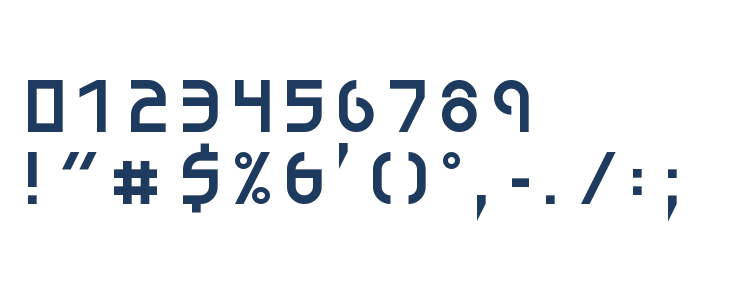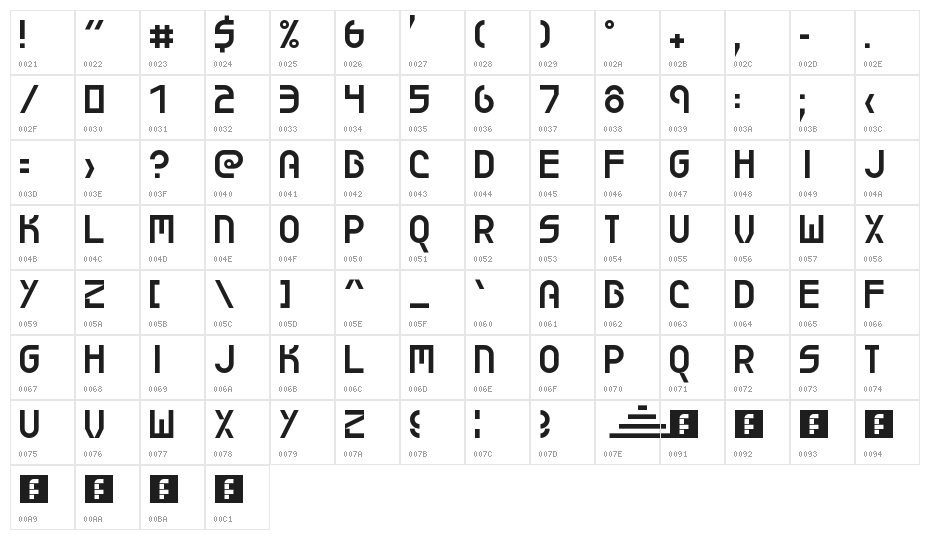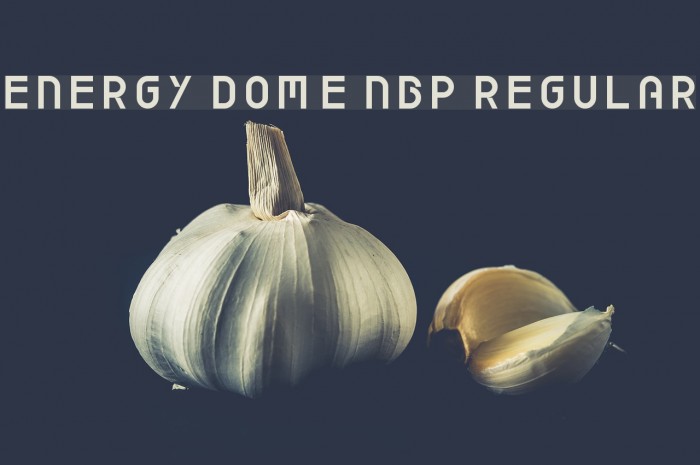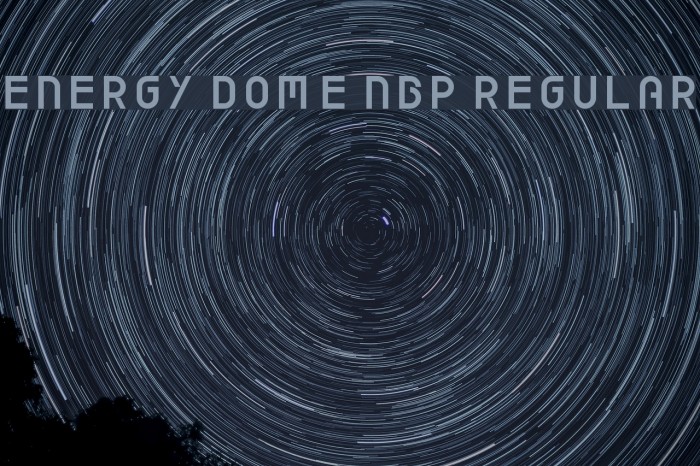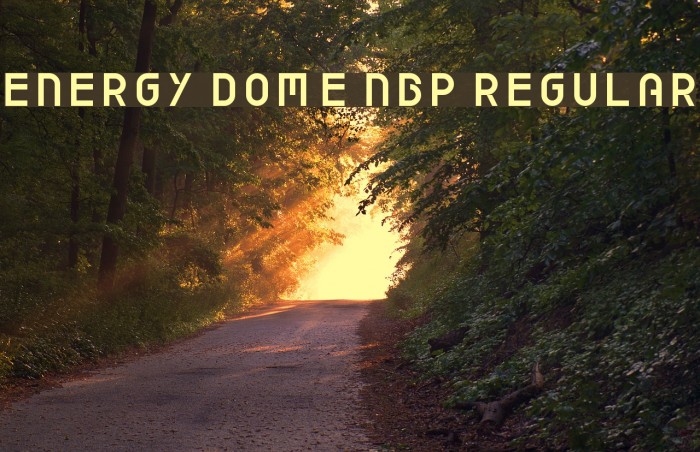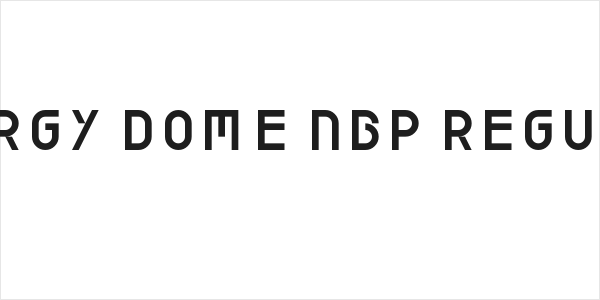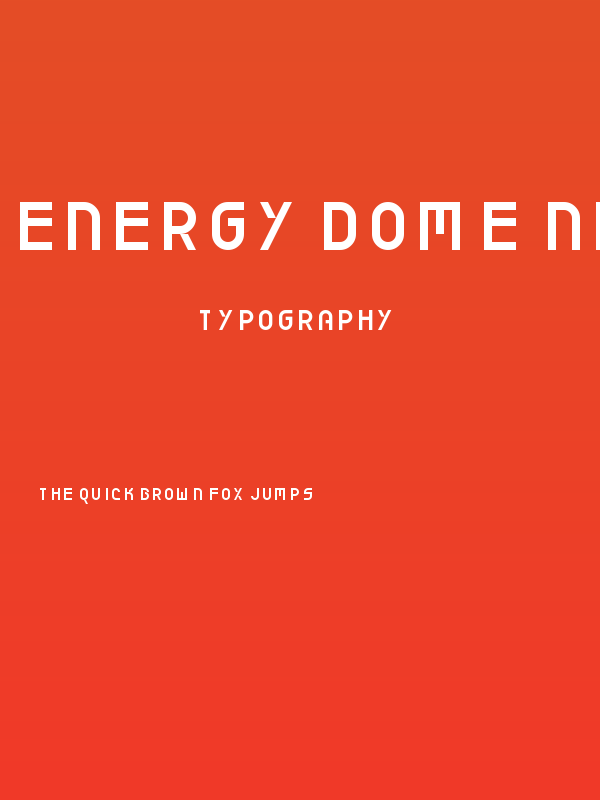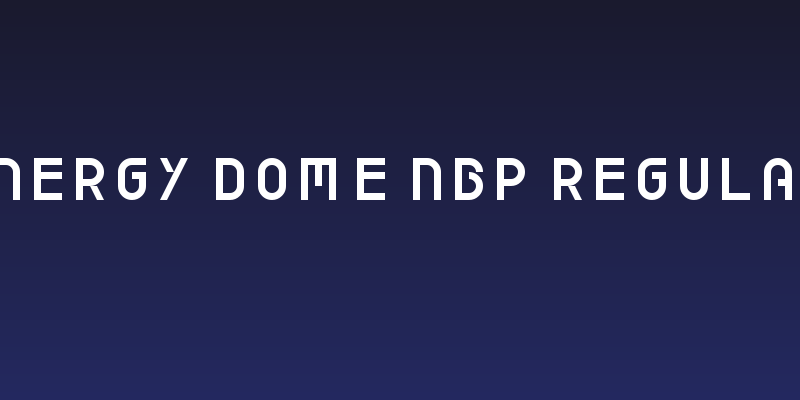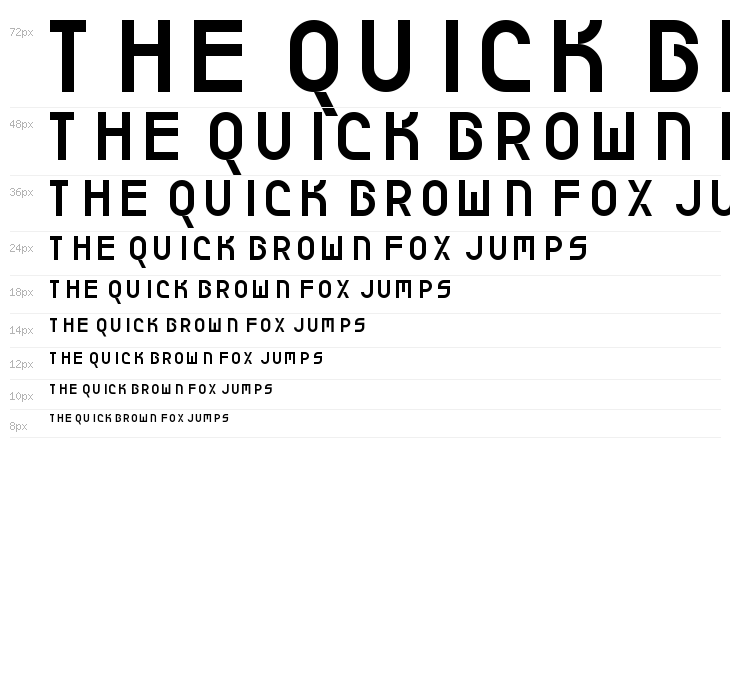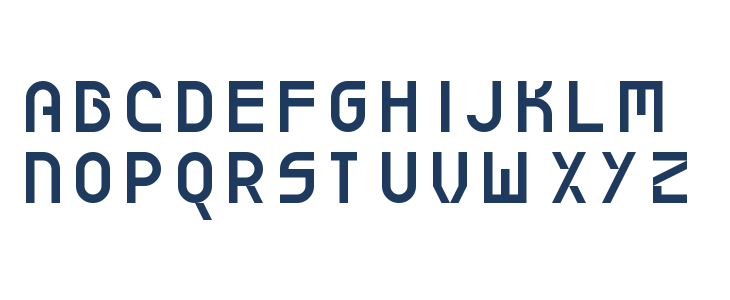
Energy Dome NBP Regular Font
Energy Dome NBP Regular Description
This font exhibits a bold and geometric style with a modern aesthetic. The characters are constructed with sharp angles and clean lines, giving it a futuristic and industrial feel. The uppercase and lowercase letters maintain a consistent structure, with a uniform height and width that enhances readability. The numerals are distinct and align well with the overall design, while the special characters complement the font's angular theme. This typeface is well-suited for projects that require a strong visual impact and a contemporary look.
| Proposed Projects | Ideal for branding, posters, headlines, and digital interfaces that require a strong and modern visual presence. |